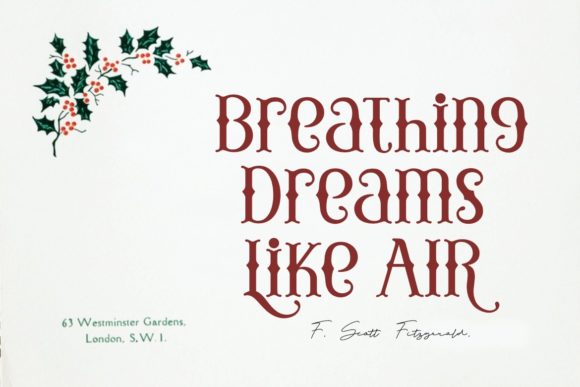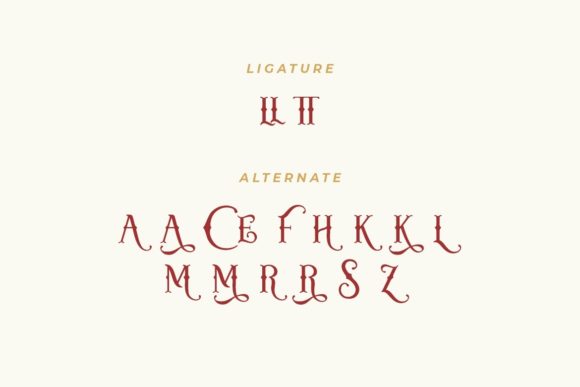
Little Witches Font
Little Witches is a bold, distinct and charming display font. This original look will appeal to a wide range of crafty ideas, from letterheads and titles, to stationery.